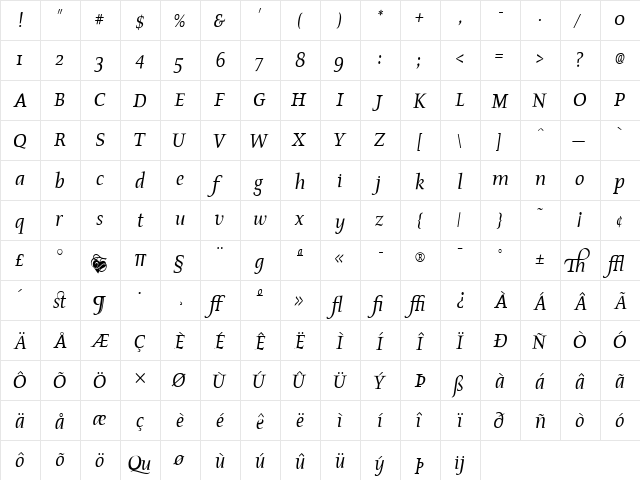
AIProsperaII Italic Font Preview
AIProsperaII Italic
AIProsperaII Italic Font Details
Design Context for AIProsperaII Typeface
AIProsperaII offers clean, dependable letterforms without strong stylistic allegiance, making it a practical choice for designers who need flexibility. The slanted form adds forward momentum and visual energy.